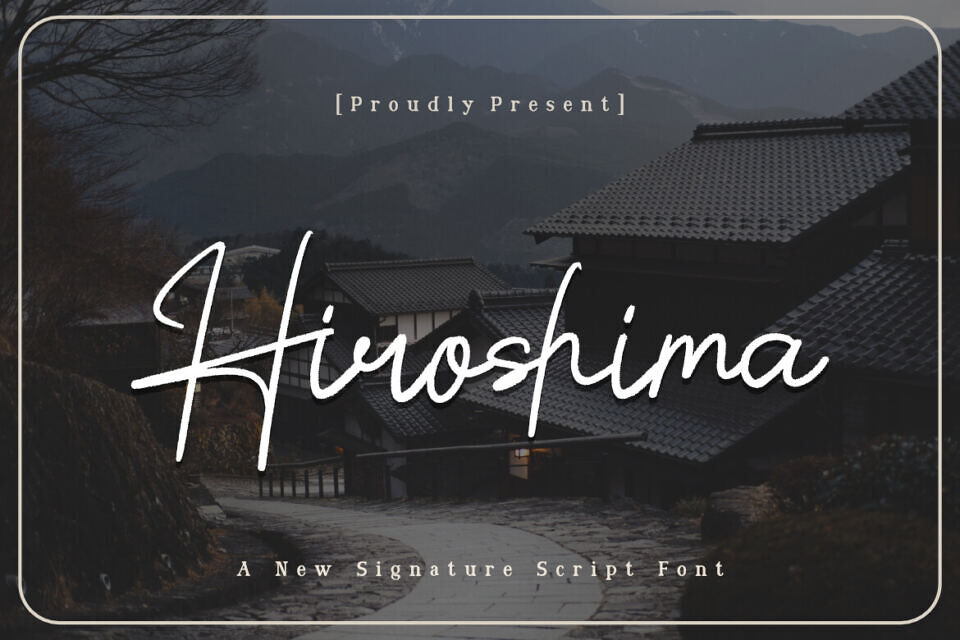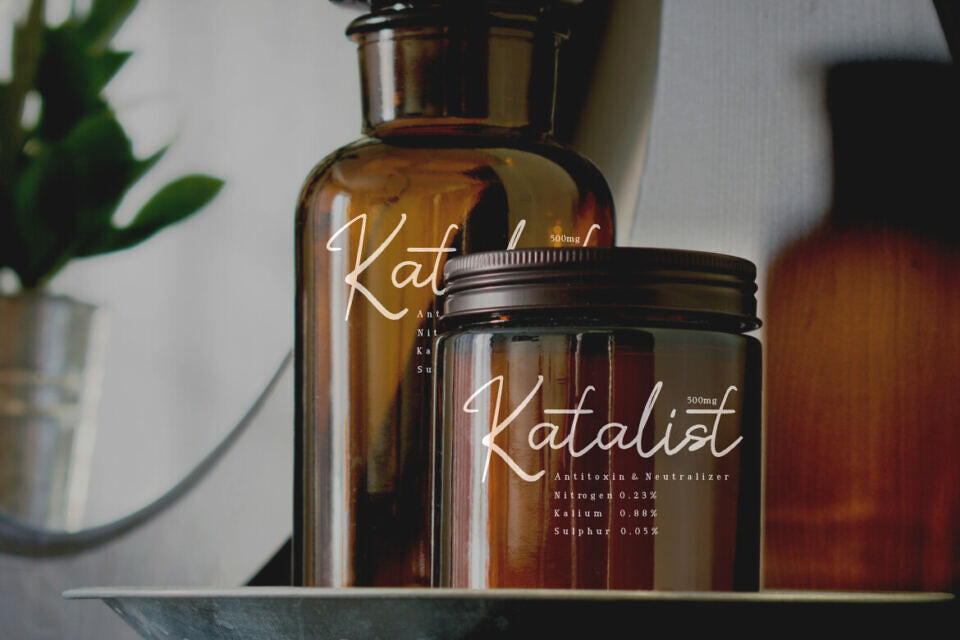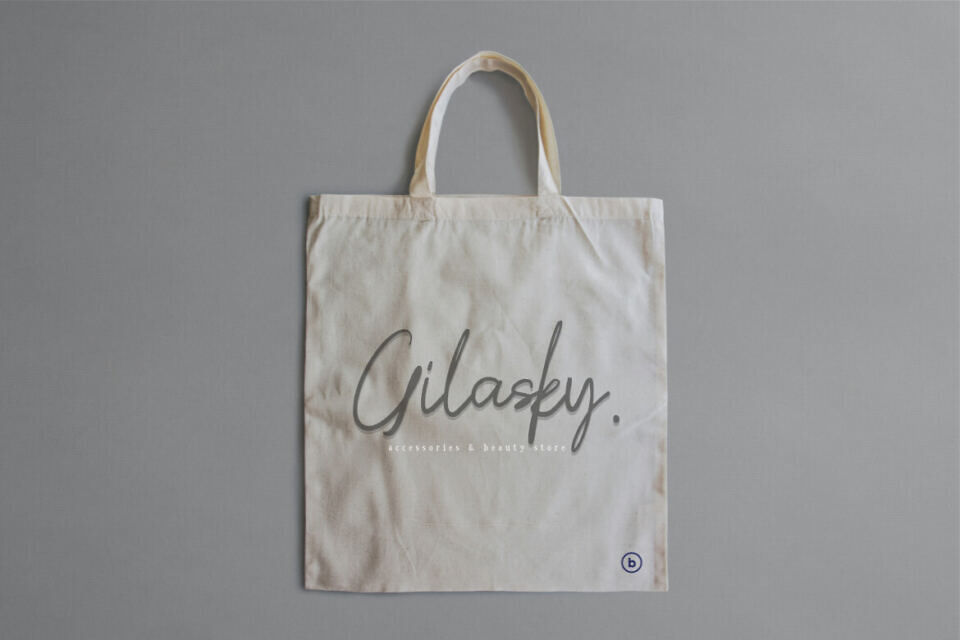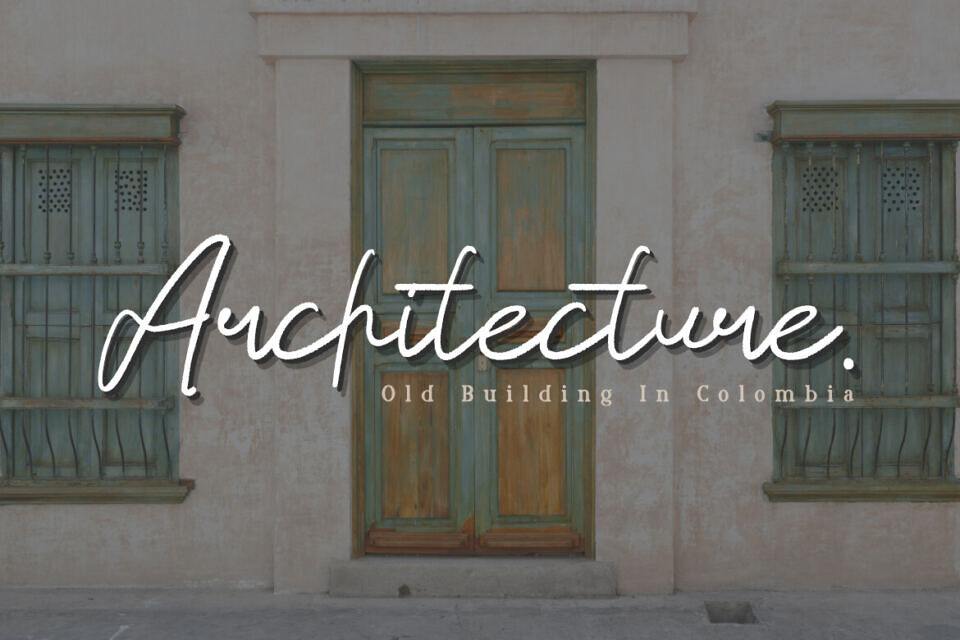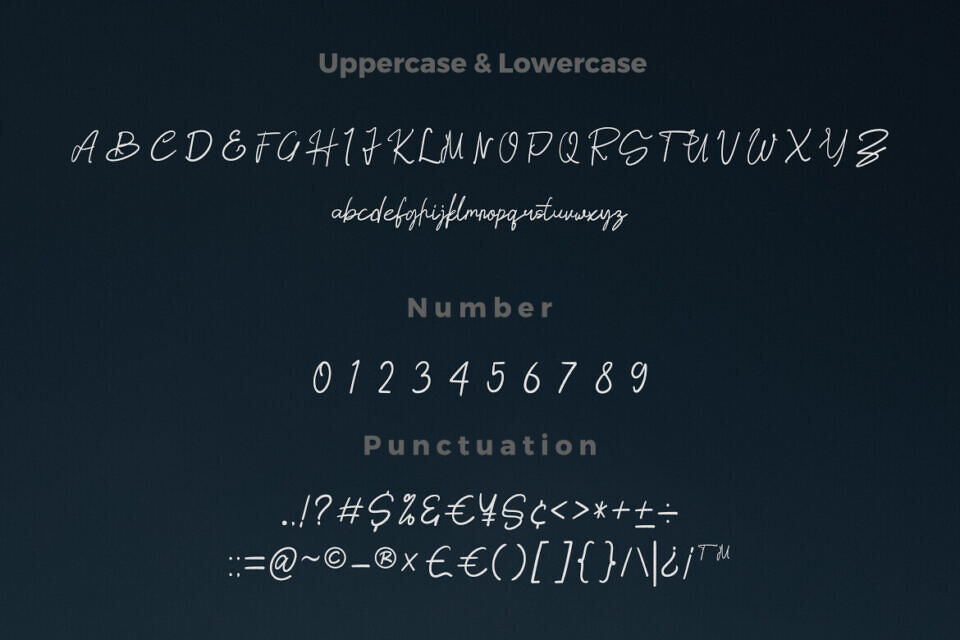
The Hiroshima Signature Script Font is a high-quality font suitable for various uses, including flyers, quotes, posters, and logos. Its premium design makes it ideal for packaging, merchandise, and banners, offering versatility and professional results.